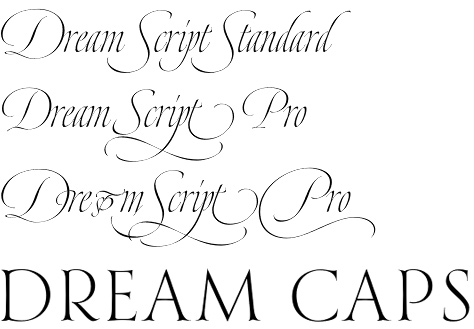
Dream Script font by Lián Types – one genuine calligraphy jewel
Dream Script font by Maximiliano Sproviero (Lián Types foundry) is an exquisite ‘chancery’ cursive script. It’s vivid, elegant, full of life, a true work of art. The secret of a good looking chancery is on its subtle details: pen angle is constantly changing, even on the strokes which seem straight. Capitals and swashes have to be done a little faster than lowercase letters. The rhythm has to be even, in spite of its playful look.
The fact that makes Dream Script font look alive is that it has many alternates per glyph. This makes each word look unique like it happens in calligraphy: you will find alternates for the beginning/ending of a word/phrase, some for the middle of it, some interchangeable.
Also, to accompany the script, you will find Dream Caps, which was inspired in the eternally beautiful Trajan capitals. You can place them like on the Dream’s designer posters and you will have great results for sure.
The font works great in small, middle and big sizes and can be a great election for magazines, wedding invitations, perfumes, and posters.
Dream Script Pro is the most complete style, it contains all the alternates and ligatures (OT programmed, better if you use Adobe applications). If you plan to use the font for text, be sure to activate the less decorative capitals, which are placed in the “salt” group of alternates. Dream Script Standard has less glyphs than the Pro one, it contains just some ligatures for a better legibility. (OT programmed, better if you use Adobe applications).
Maximiliano Sproviero is typography designer from Buenos Aires. The creation of fonts began as a hobby but later it became an addiction. Not only digital fonts, characters written on paper have their own personality. Maximiliano found calligraphy a very relaxing way to make art. Lián Types is Maximiliano’s foundry established in 2008. See also his immence collection of Beatle font, Erotica font, String font, Brand font, Aphrodite Slim Pro font and Parfumerie Script font (in co-operation with Sabrina López),
Dream Script received a “Certificate of Excellence” at the 2016 Tipos Latinos Biennale.